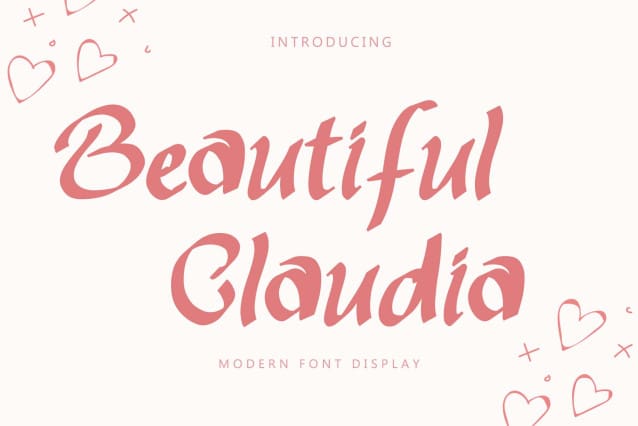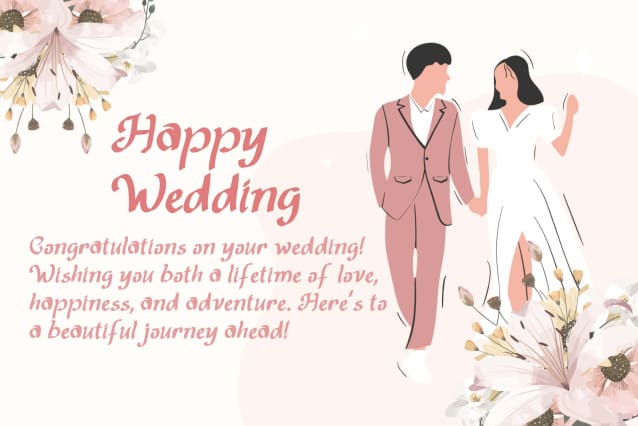
Beautiful Claudia Font
Beautiful Claudia Font is an elegant display font. It comes with lowercase, uppercase, numbers, punctuation, and multilingual support. It is perfect for wedding, birthday, invitation, valentine, christmas, banner, branding, sticker, poster, print, logo, etc.